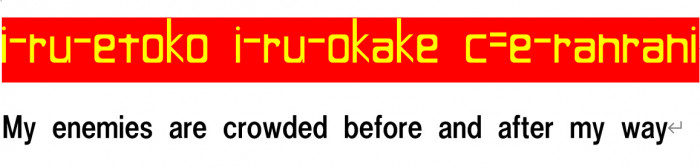
This is a font for Ainu languages.
Ainu is a name for an ethic group who used to live in northern Japan.
The Japanese Imperialists had a strong RACIAL SEGREGATION on them, that caused extinction of Ainu spirit and languages!
We know clearly that Imperialists always try to kill other cultures.
We can be sure that the Japanese one was the worst, because they wanted to DESTROY her neighbors' cultures and languages such as Ryukyu, Korea, and Ainu.
This font will be a battle flag of the conflict to save the people and the languages that is endangered and about to DESTROYED by the Japanese Imperialist.